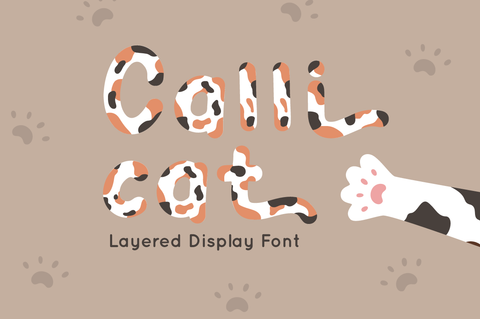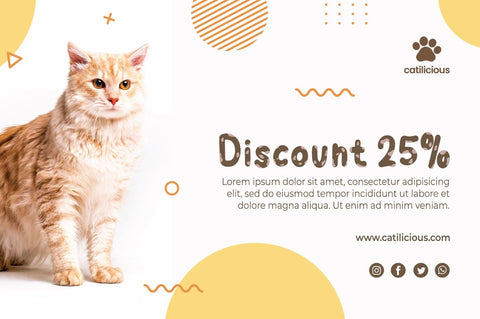
Calli Cat - Display Font
Calli cat is display font inspired by Pattern of Calico Cats. Calli Cat is layered Font that simple to use to make a word like calico pattern.
Calli cat perfectly macth for any product like book cover, t-shirt, branding, promotion, social media post, quotes, crafting, photography and more.
- Ending Swash
- Layered Fonts